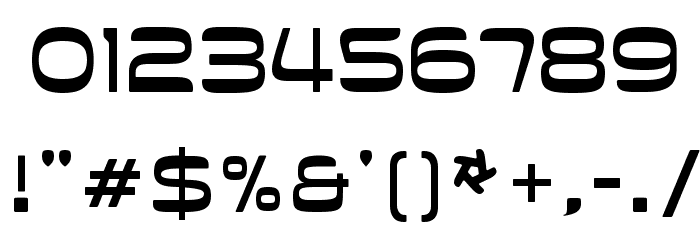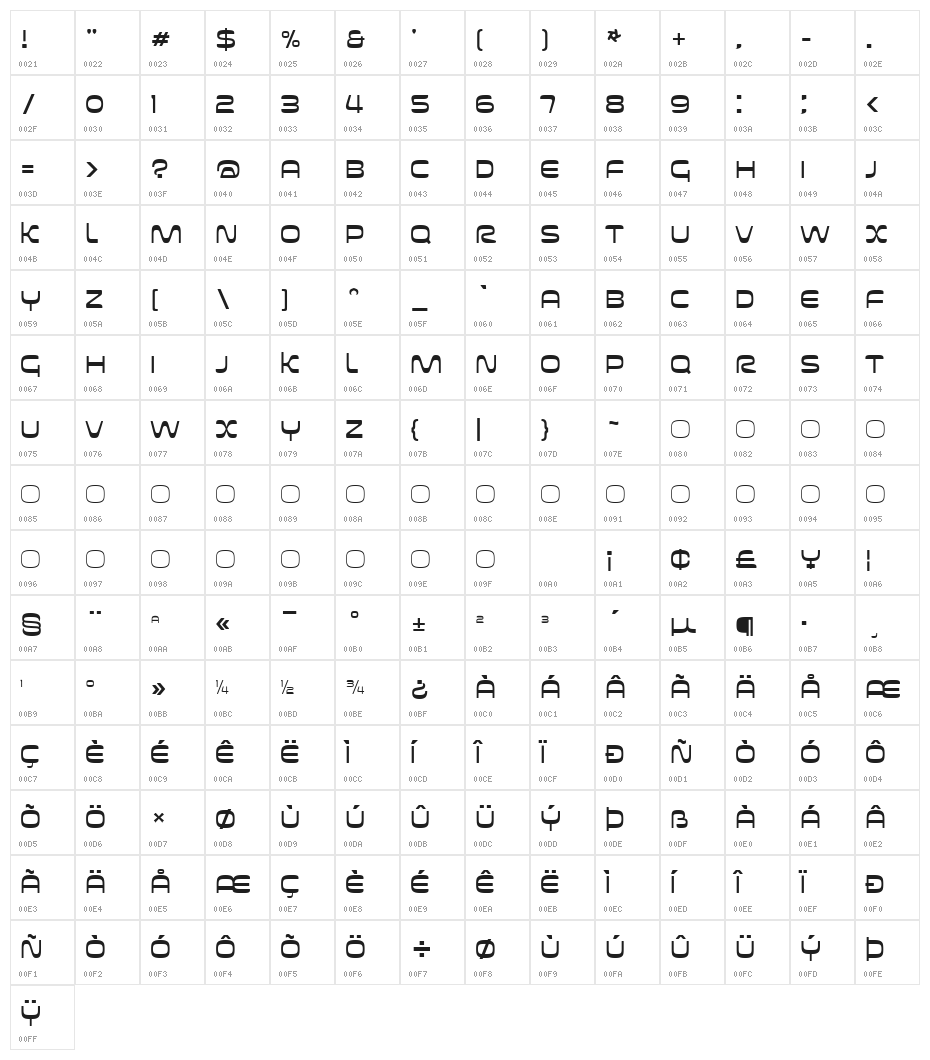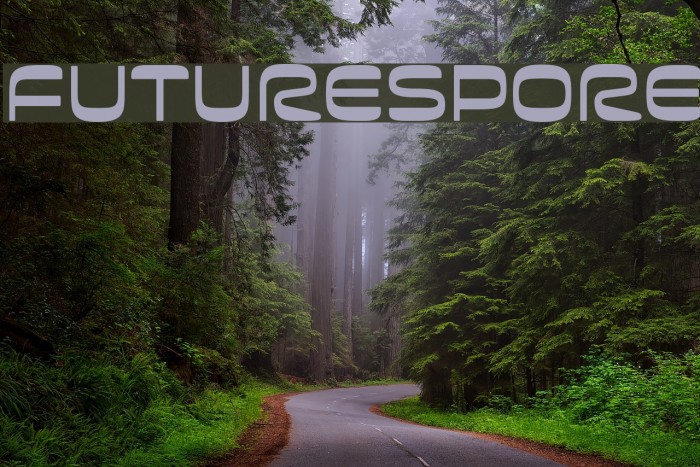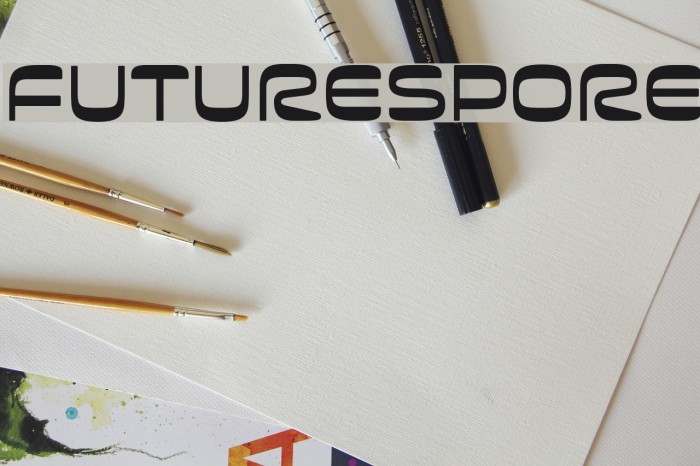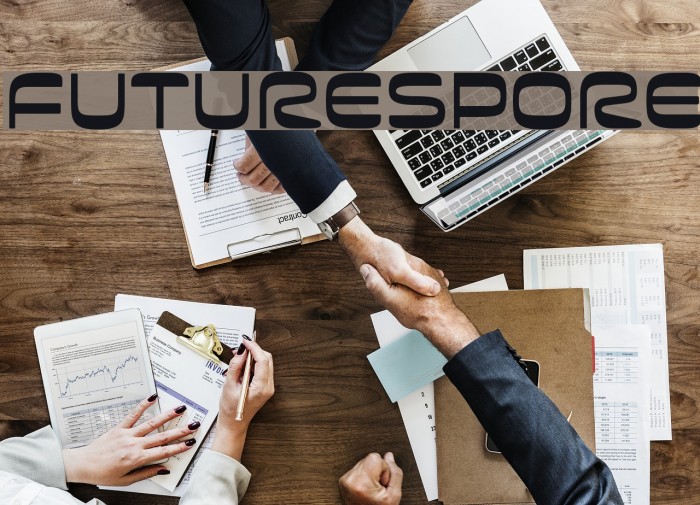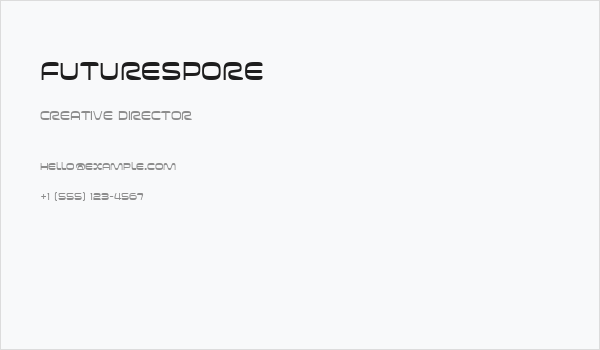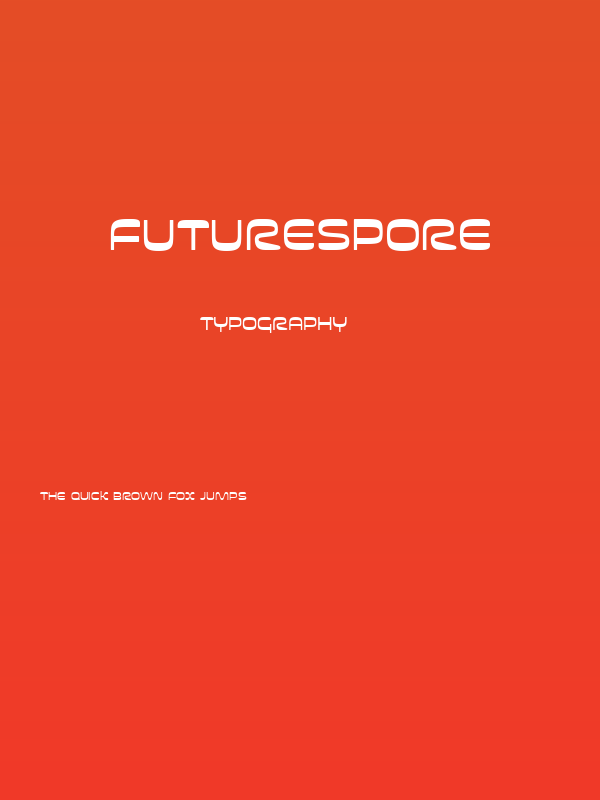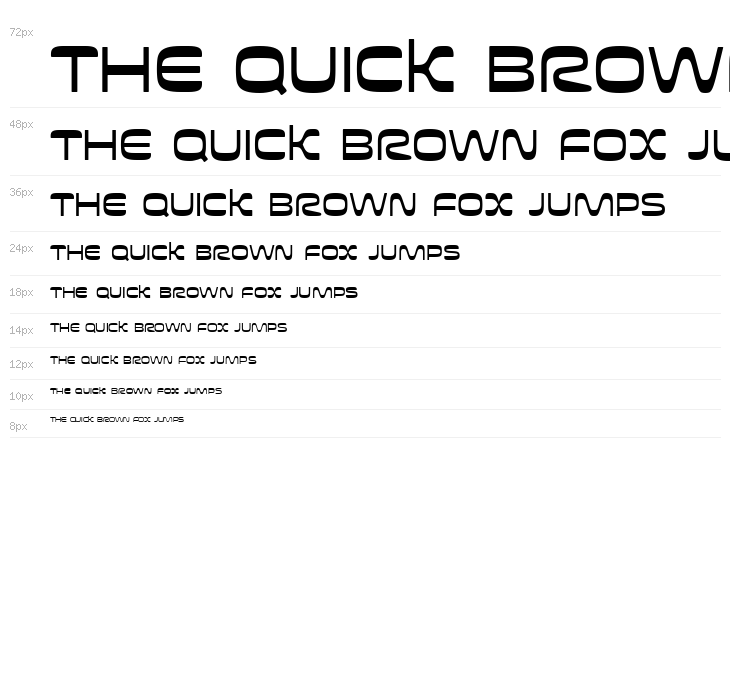
Futurespore Font
Futurespore Description
This font features a futuristic and sleek design with rounded edges and a geometric structure. The characters are uniformly styled with a consistent width, giving it a modern and streamlined appearance. The uppercase and lowercase letters maintain a cohesive look, with smooth curves and minimalistic details. The numerals and special characters are designed to match the overall aesthetic, providing a harmonious visual experience. Its unique style makes it suitable for projects that require a contemporary and cutting-edge feel.
| Proposed Projects | Ideal for technology branding, sci-fi movie posters, modern website headers, and innovative product packaging. |